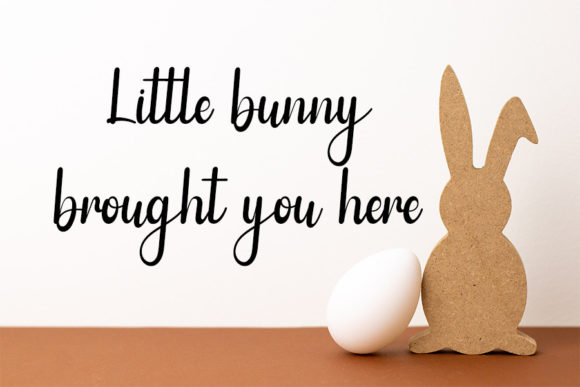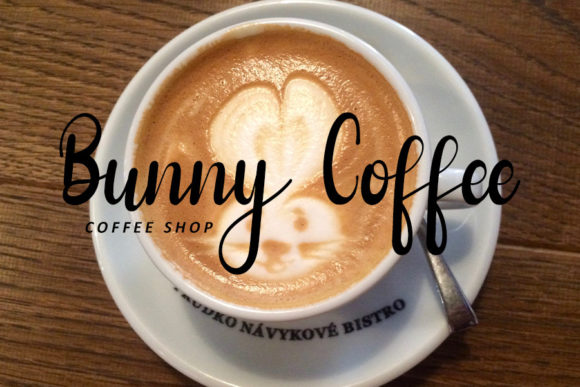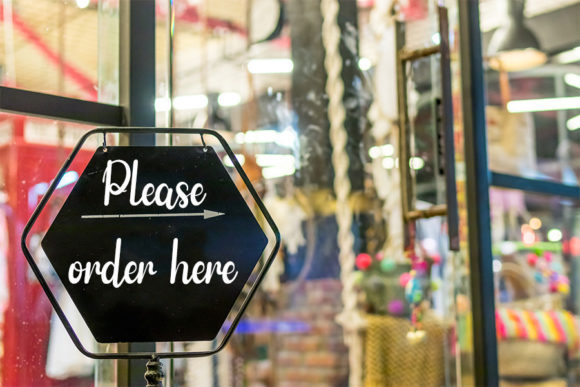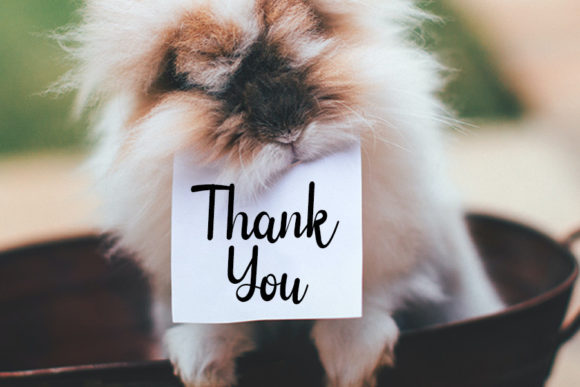
Introduction to Rabbit Island Font
Have you ever stared at a blank canvas, searching for the perfect design element to bring your creative project to life? It’s a moment we’ve all experienced as designers – the thrill of experimentation, the agony of indecision. But what if I told you that there’s a font that can effortlessly elevate your work, making it stand out in a sea of transparent backgrounds and high-quality visuals?
Enter the Rabbit Island Font, a lovely handwritten font that’s sure to captivate your audience. This design resource is perfect for product packaging, branding projects, magazine covers, social media, weddings, or any other creative endeavor that requires a touch of elegance. With its curvy lines and sophisticated feel, the Rabbit Island Font is an invaluable asset for designers looking to take their work to the next level.
Key Features of Rabbit Island Font
- High-quality design resource ideal for creative projects, offering a unique and stylish touch.
- Features a crisp and clear design, suitable for use at resolutions up to 300 DPI.
- Includes a range of characters, including uppercase and lowercase letters, numbers, and special symbols.
- Perfect for use in a variety of creative projects, from logos and branding to digital art and typography.
Honest Review: Rabbit Island Font
I recently stumbled upon the Rabbit Island Font and was excited to give it a try. As a designer, I’m always on the lookout for unique and high-quality design resources to elevate my creative projects.
One of the standout features of the Rabbit Island Font is its elegant and whimsical style, perfect for projects that need a touch of sophistication. I was impressed by the high quality of the font, with crisp lines and smooth curves that make it ideal for both digital and print applications.
- ✨ Elegant and whimsical style that’s perfect for creative projects
- ✨ High-quality design that’s ideal for both digital and print applications
- ⚠️ Limited character set, which may not be suitable for projects that require a wide range of characters
Overall, I’m impressed with the Rabbit Island Font, but it’s not without its limitations. If you’re looking for a unique and high-quality font for your creative project, I’d definitely recommend giving it a try. Just be aware of its limitations and plan accordingly.
Rabbit Island Font is a versatile design resource that can be used in a variety of creative projects, including graphics, logos, and text overlays. Its transparent background makes it easy to customize and integrate into your design. With Rabbit Island Font, you can add a touch of elegance and sophistication to your design.